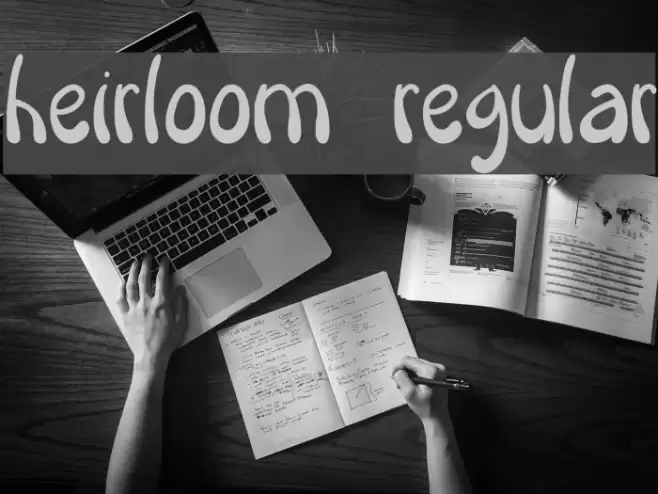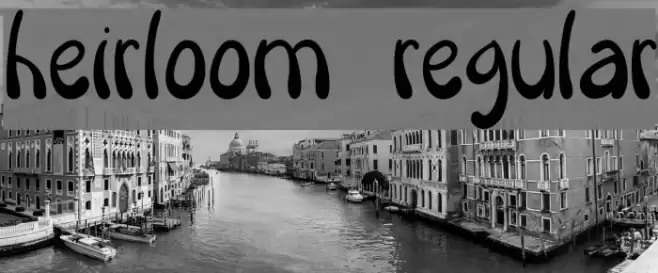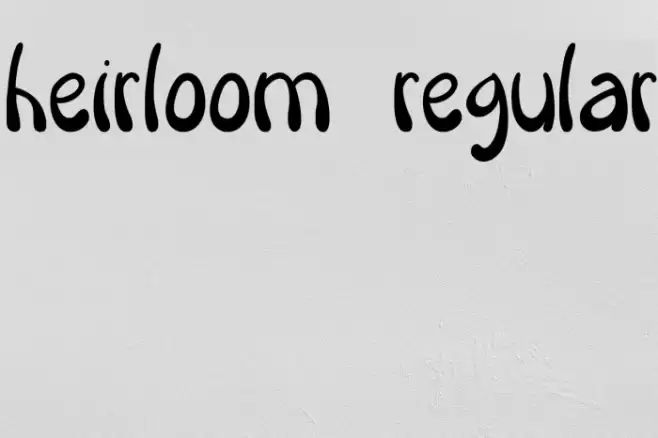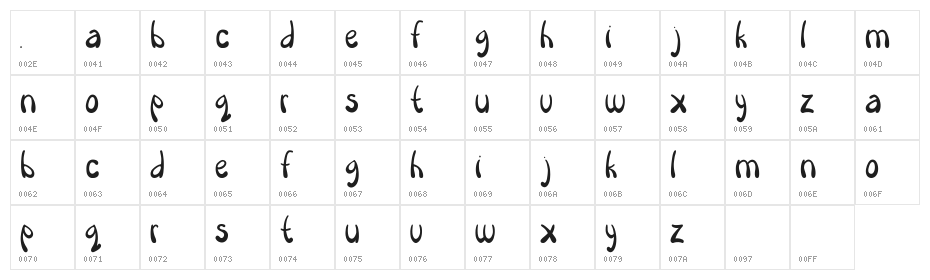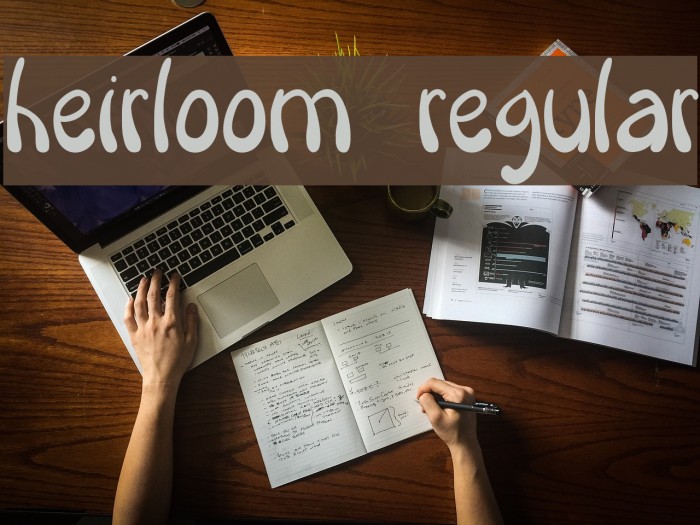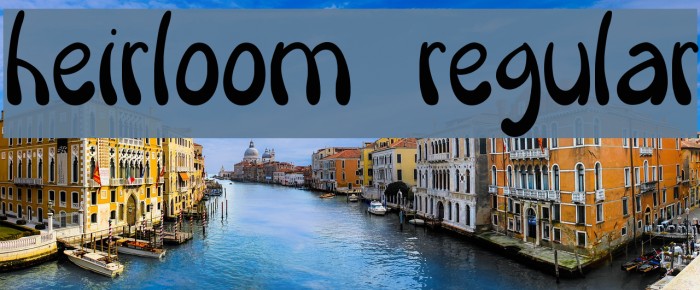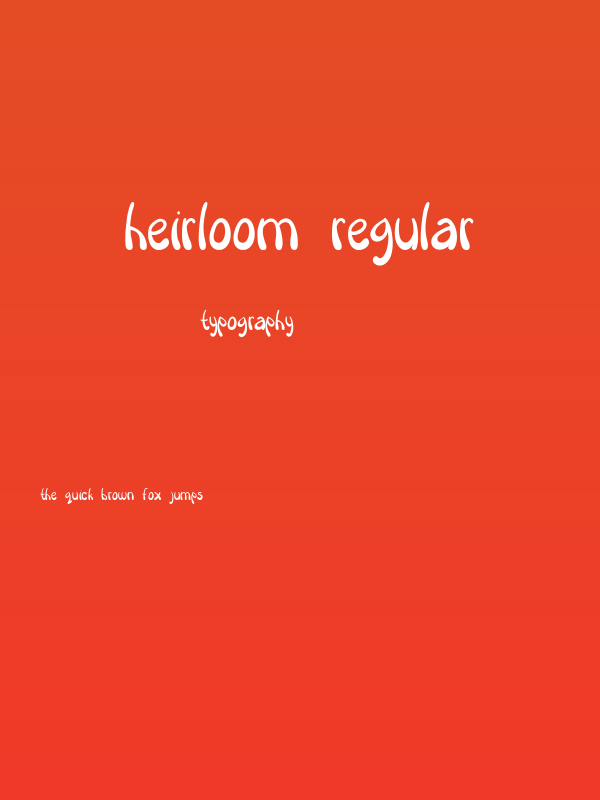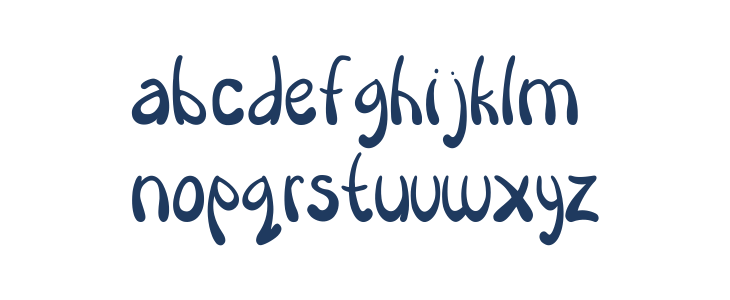
Heirloom Regular Font
Heirloom Regular Description
This font features a playful and whimsical design, characterized by its rounded and slightly irregular letterforms. The strokes are smooth and fluid, giving it a friendly and approachable appearance. The letters have a hand-drawn quality, with varying stroke widths that add to its charm. The overall look is casual and informal, making it suitable for creative and artistic projects. The font maintains good readability despite its unique style, with clear distinctions between each character. Its organic shapes and flowing lines make it ideal for projects that require a touch of personality and warmth.
A playful, hand-drawn font with rounded, irregular letterforms and a whimsical style from Uncategorized fonts.
- Proposed Projects: Ideal for children's books, greeting cards, playful branding, and creative posters.
- Use Case: Headlines, Logos, Creative projects